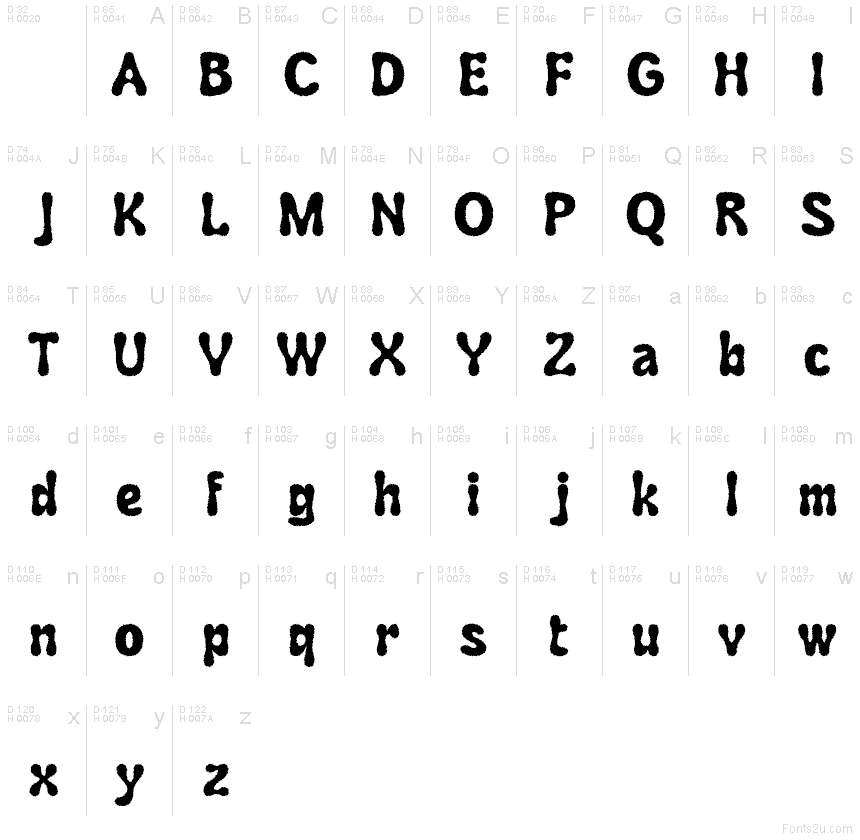
Rastely Rough Regular Demo
Rastely Rough font, designed by Craft Supply Co., is a bold cartoon display typeface with a retro-inspired look. This free font has a textured appearance that gives an organic feel to the characters complementing its letters' whimsical flair. It will give your product and phrase designs a casual tone and an effective captivating artistic touch.